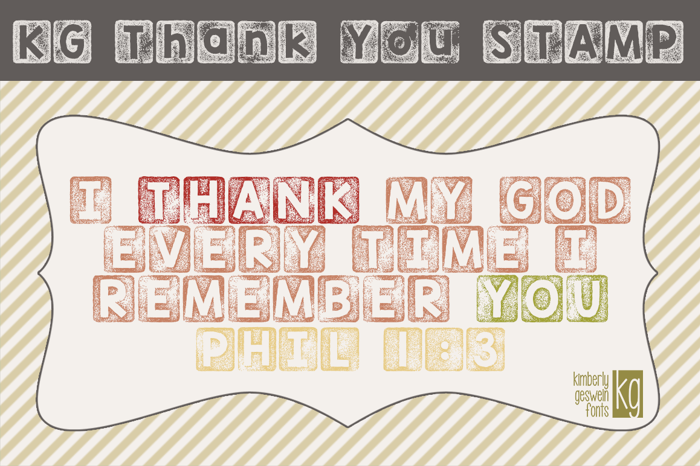
KG Thank You Stamp Font
Warning: This font is extremely large and is not appropriate for use on older computers. For Windows, please right click the file and click "install" as loading the preview window may freeze your computer. Apologies! Texture = Big Size.